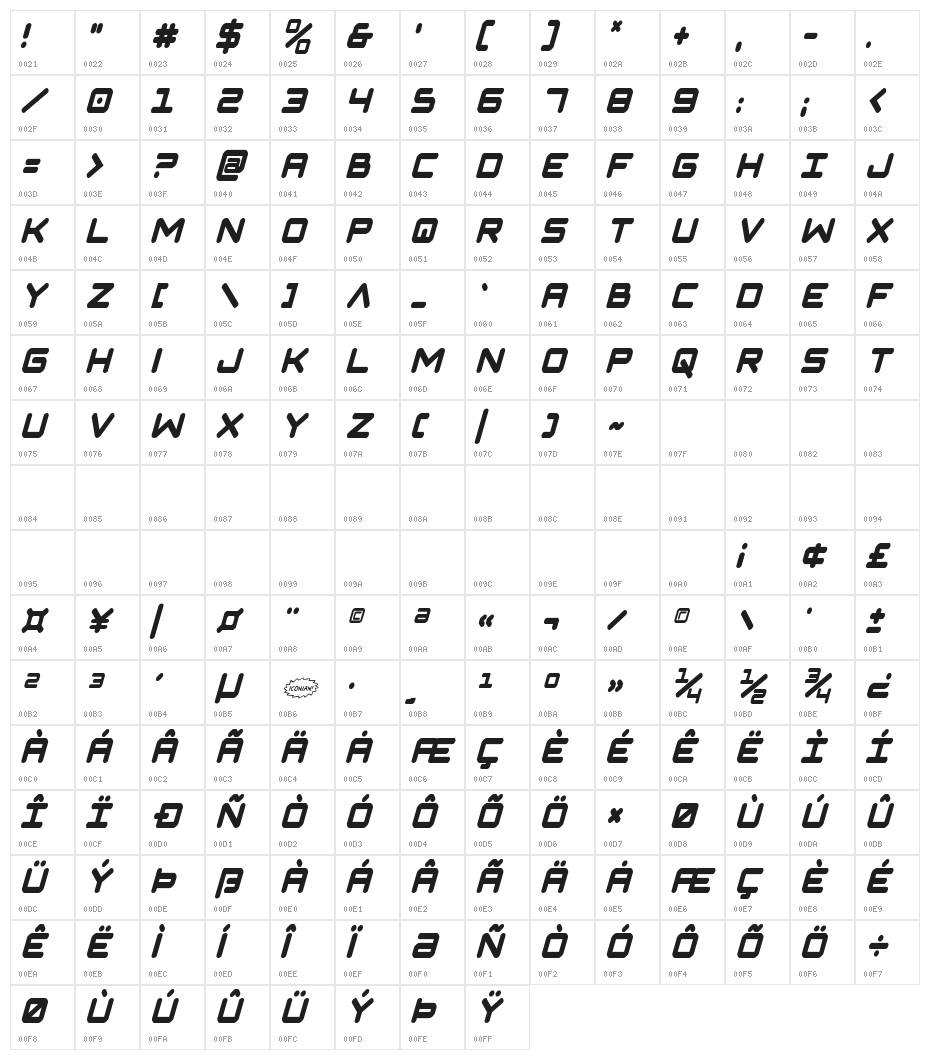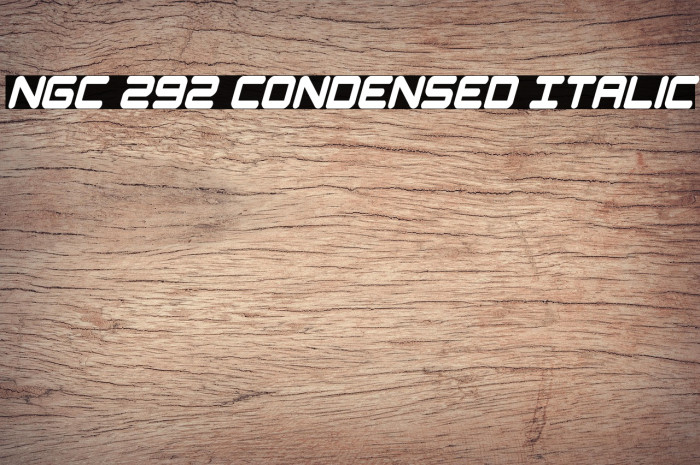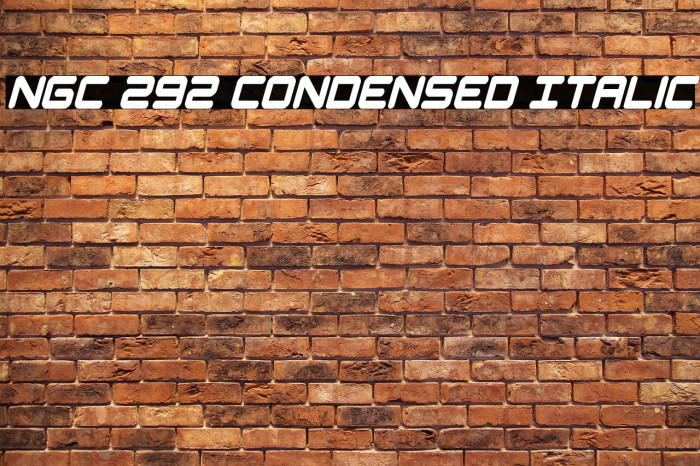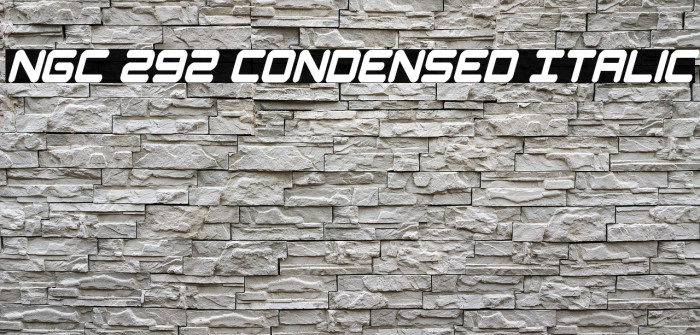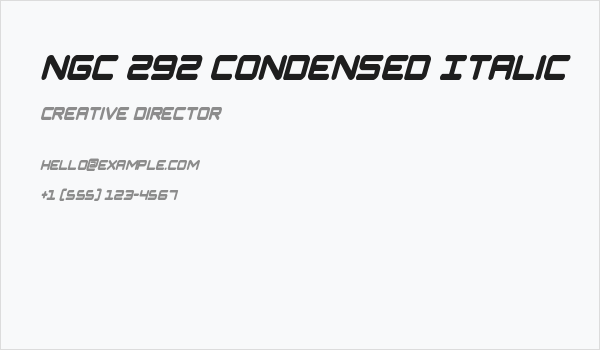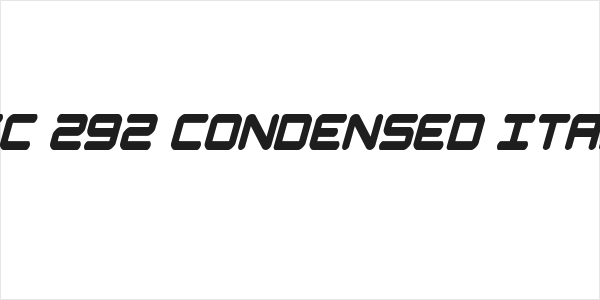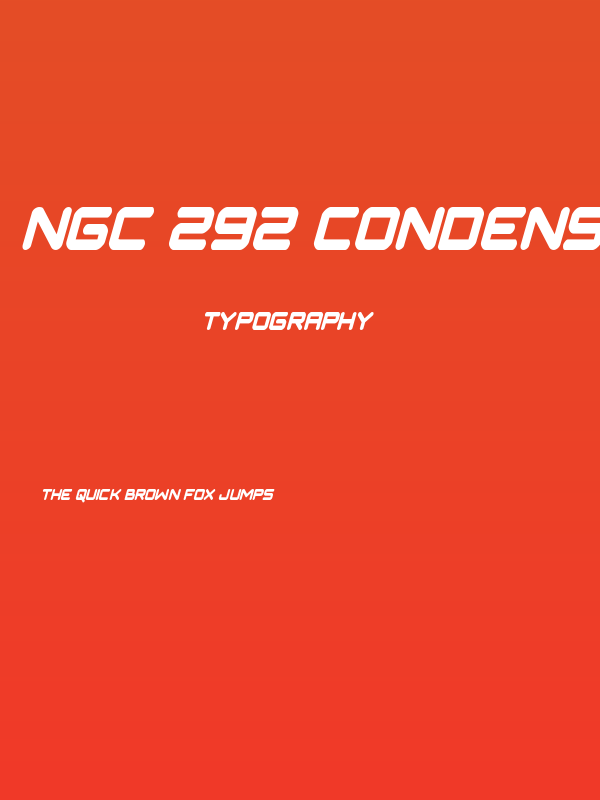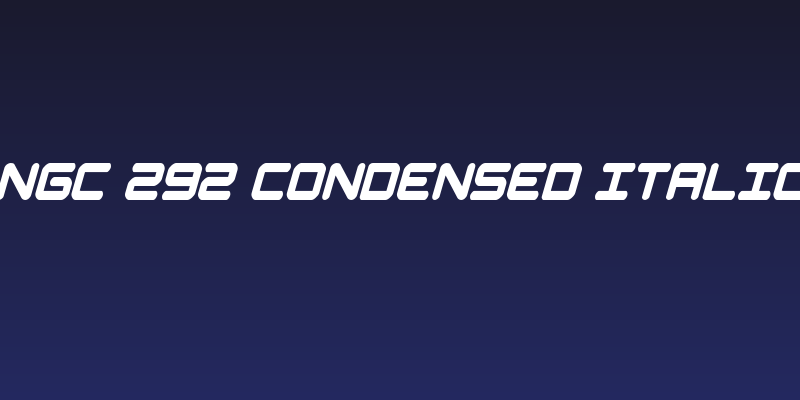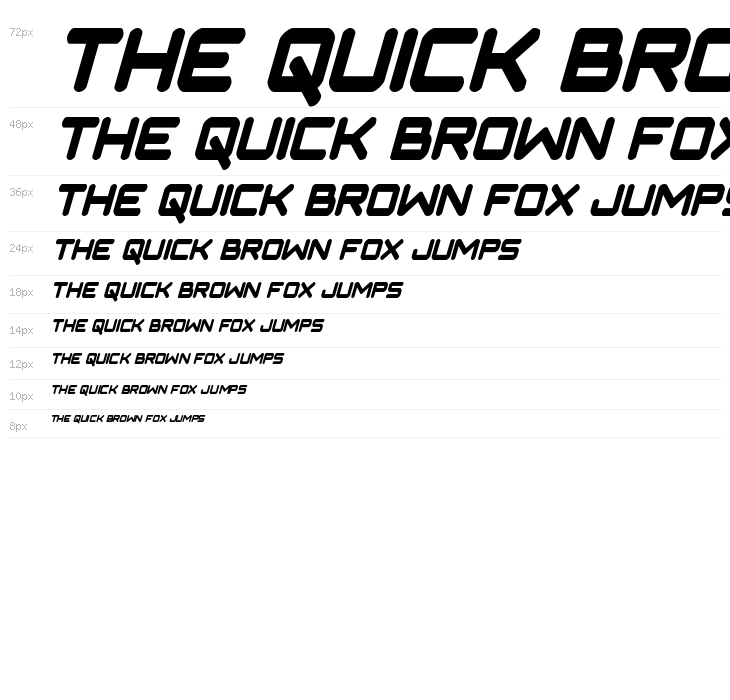
NGC 292 Condensed Italic Font
NGC 292 Condensed Italic Description
This font features a modern, streamlined design with a condensed and italicized style. The characters are bold and have a futuristic feel, with smooth curves and a consistent stroke width. The uppercase and lowercase letters maintain a uniform appearance, enhancing readability while adding a dynamic touch. The numbers and special characters are designed to match the overall aesthetic, making it suitable for digital and print media. Its sleek and contemporary look makes it ideal for projects that require a forward-thinking and innovative vibe.
| Use Case | Headlines, Logos, Digital interfaces |
| Proposed Projects | Ideal for tech branding, digital interfaces, modern advertising, and innovative product packaging. |